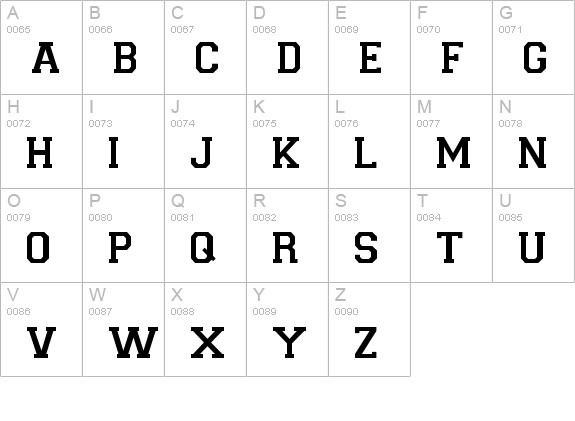
Letter Sweater Display SSi Font Details
Letter Sweater Display SSi font is a nostalgic and whimsical typeface that brings back memories of old-school varsity sports and classic letterman jackets. With its bold and blocky letterforms, this font exudes a sense of retro charm and vintage flair. The distinctive design of Letter Sweater Display SSi font makes it perfect for a wide range of creative projects. Whether you're designing a logo for a sports team, creating eye-catching signage, or adding a touch of nostalgia to your branding, this font will make a bold statement. One of the best things about Letter Sweater Display SSi font is that it is freely available to download at FontsMarket.com. This means that you can easily get your hands on this unique and stylish font without having to spend a single penny. With just a few clicks, you can bring the timeless appeal of Letter Sweater Display SSi font to your designs. The versatility of this font is further enhanced by its uppercase letterforms, numbers, and a selection of special characters. This allows you to unleash your creativity and experiment with different combinations to achieve the desired look and feel. With its clean and sharp edges, Letter Sweater Display SSi font is highly legible even at smaller sizes. This makes it suitable for various applications, from print materials such as posters and flyers to digital designs like websites and social media graphics. Whether you're a professional graphic designer or a DIY enthusiast, Letter Sweater Display SSi font is a must-have in your typography arsenal. Its retro charm, versatility, and the fact that it is freely available to download at FontsMarket.com make it a font that you don't want to miss out on. So go ahead, unleash your creativity, and let this font bring a touch of nostalgia and style to your designs.